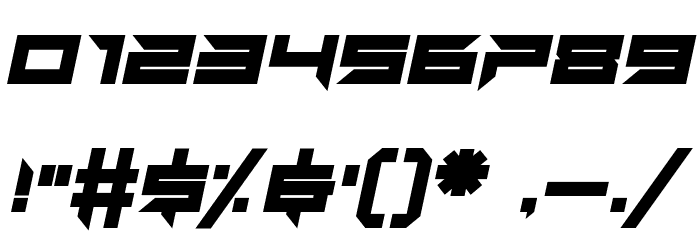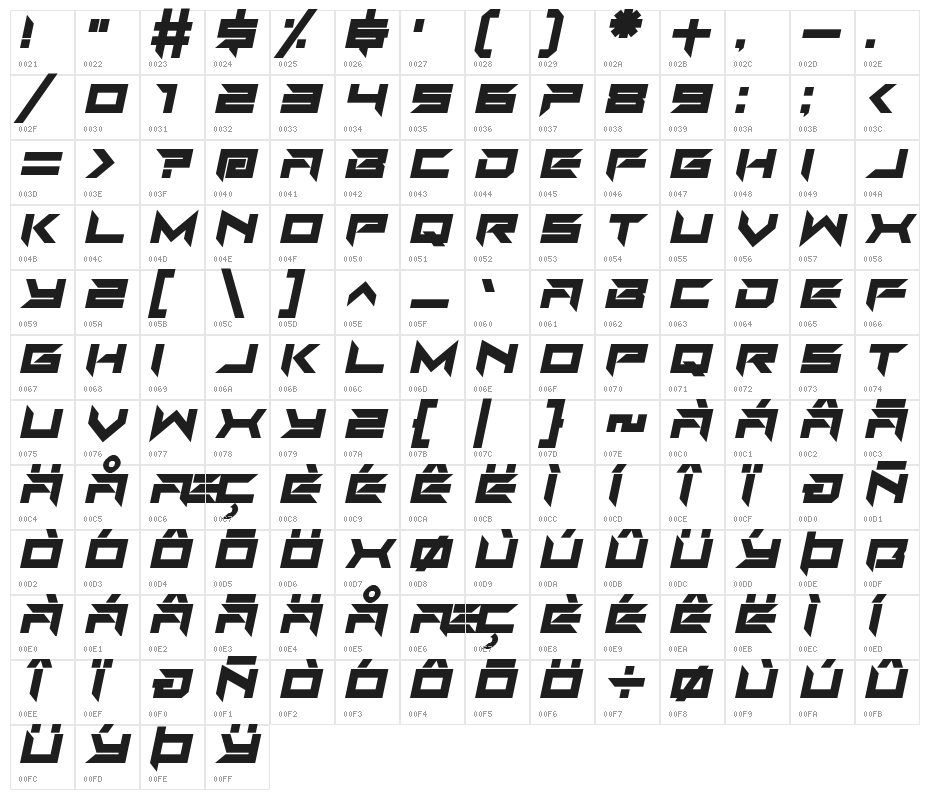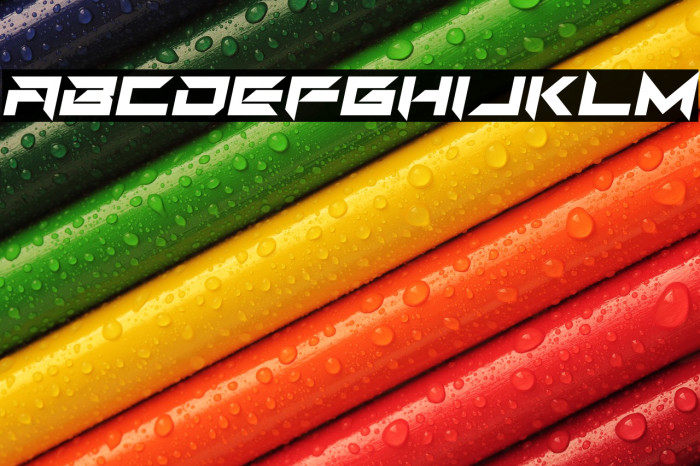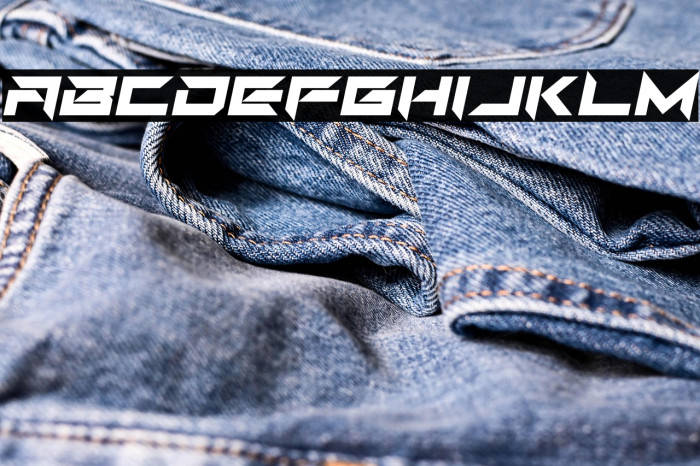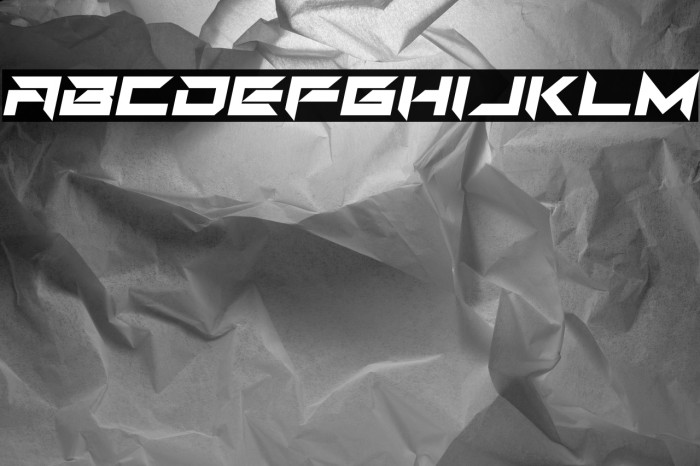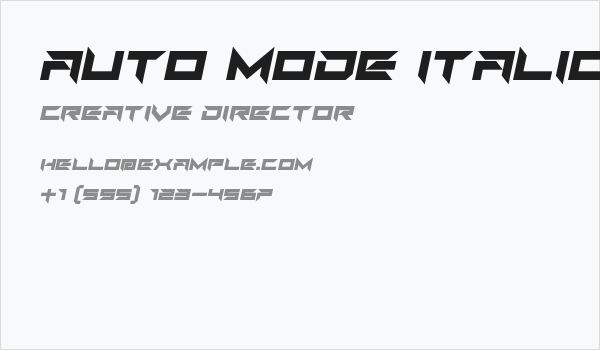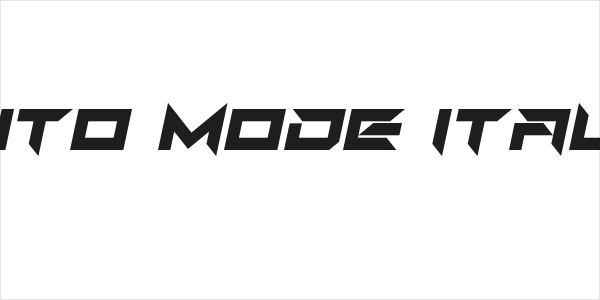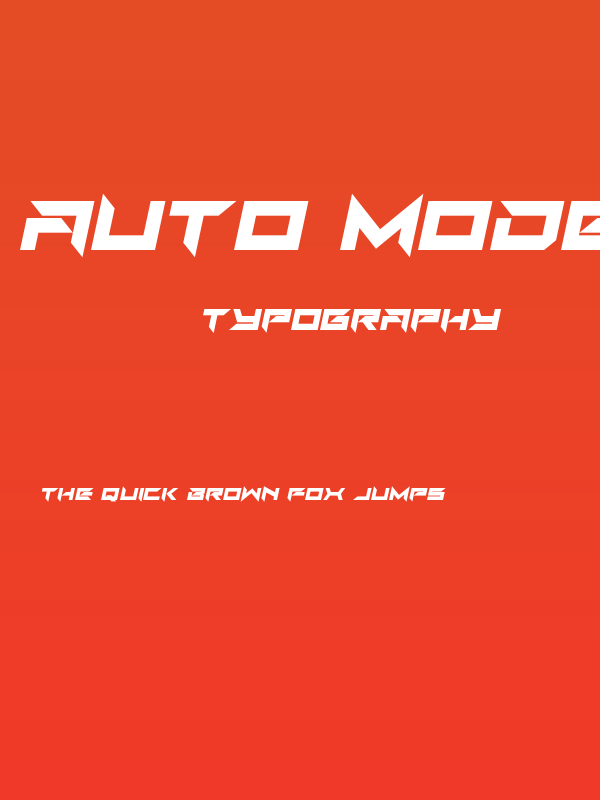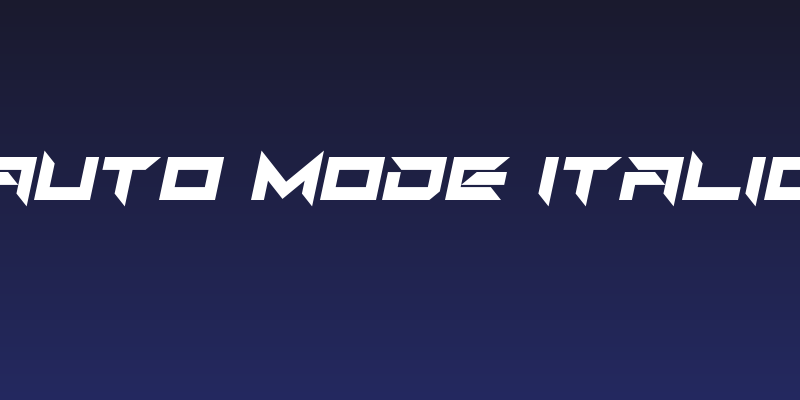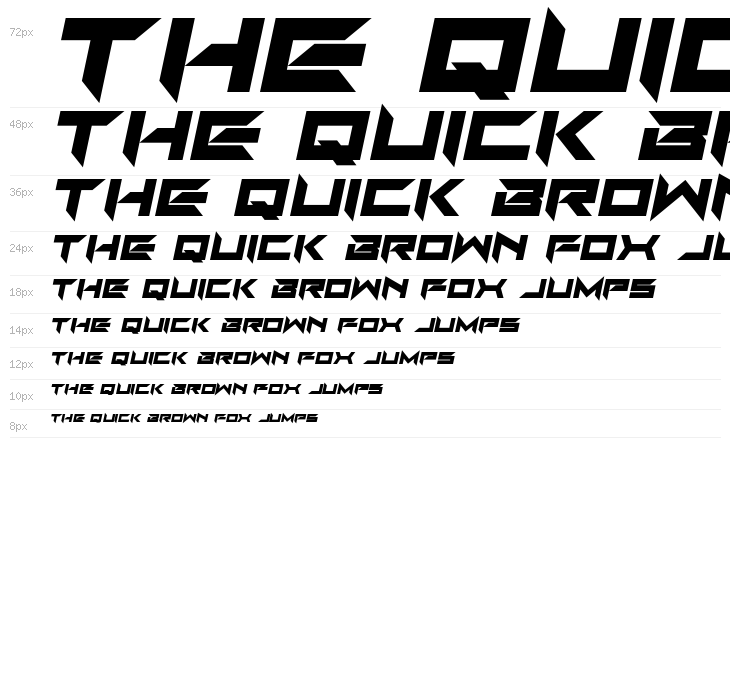
Auto Mode Italic Font
Auto Mode Italic Description
This font features a bold, angular design with sharp, geometric edges that convey a sense of speed and modernity. The characters are italicized, adding a dynamic and forward-leaning appearance. The uppercase and lowercase letters maintain a consistent style, with each character exhibiting a futuristic and aggressive aesthetic. The numbers and special characters follow the same design principles, ensuring uniformity across all glyphs. This font is particularly striking due to its high contrast in stroke thickness, which enhances its bold and impactful presence.
| Use Case | Logos, Headlines, Branding |
| Proposed Projects | Ideal for projects that require a modern and edgy look, such as technology branding, video game titles, automotive advertisements, and sports team logos. |